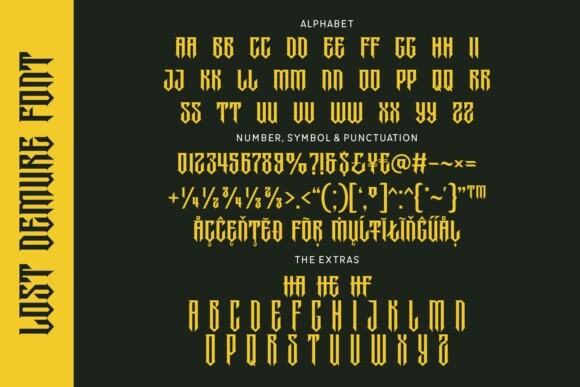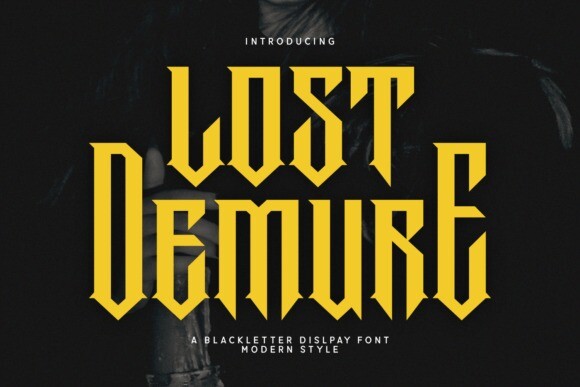
Lost Demure Font
Lost Demure Font is a modern blackletter font that combines classic elegance with a contemporary twist. Its bold, decorative letters are perfect for adding a touch of sophistication to your designs. With sharp edges and flowing lines, Lost Demure is ideal for headlines, logos, and any project that needs a stylish and artistic flair.